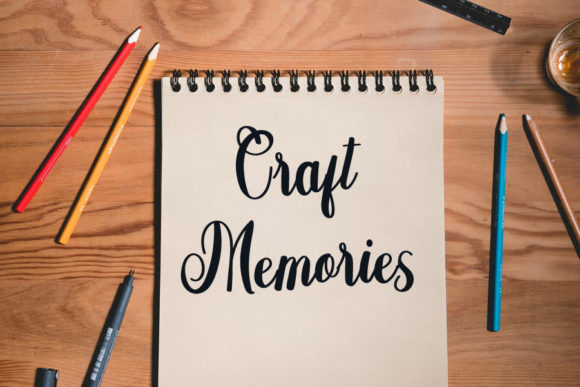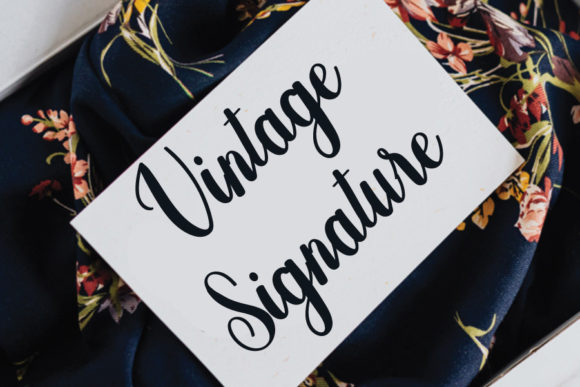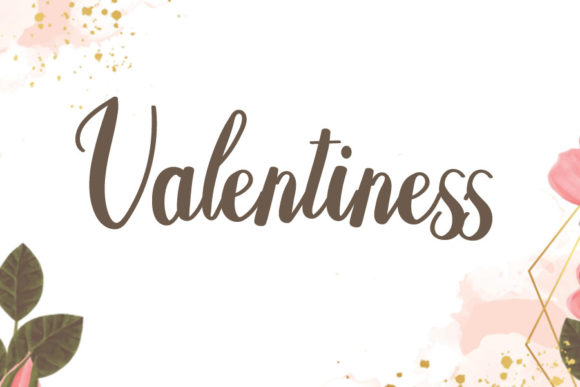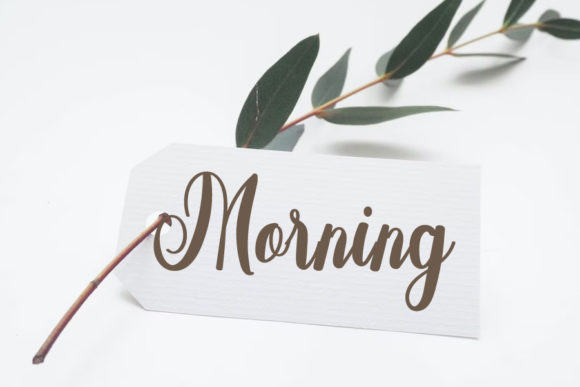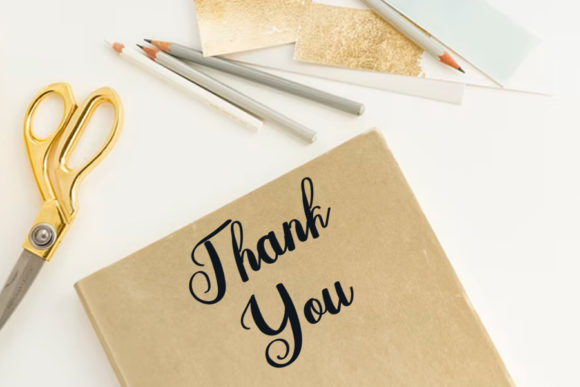
Drawing Font
About Drawing Font
Drawing is a distinct graceful script font. Fall for its ravishing style and use it to create gorgeous designs. Use this font for your designs and explore its endless possibilities.